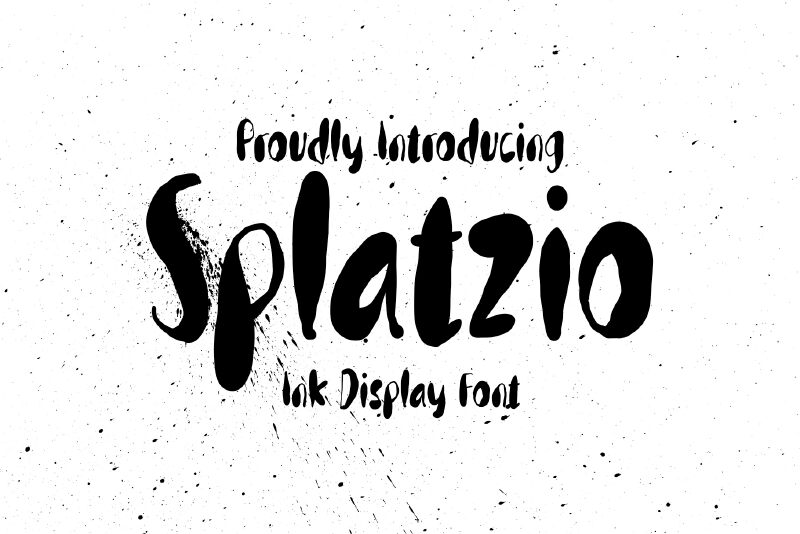
Splatzio is a bold, brush-style font designed by Tera Asset Garage. Its striking, dynamic strokes exude a sense of energy and movement, captivating the viewer with its distinct personality. The playful, organic nature of the letterforms invites a sense of spontaneity and creativity, making it an excellent choice for a wide range of design applications.
The bold, confident brushstrokes of Splatzio lend themselves particularly well to eye-catching headlines, impactful branding, and vibrant display typography. Its versatility allows it to seamlessly integrate into diverse design contexts, from modern marketing materials to daring editorial layouts, and even playful packaging designs. Splatzio's ability to command attention and convey a sense of passion makes it a compelling choice for designers seeking to add a touch of unique flair to their projects.